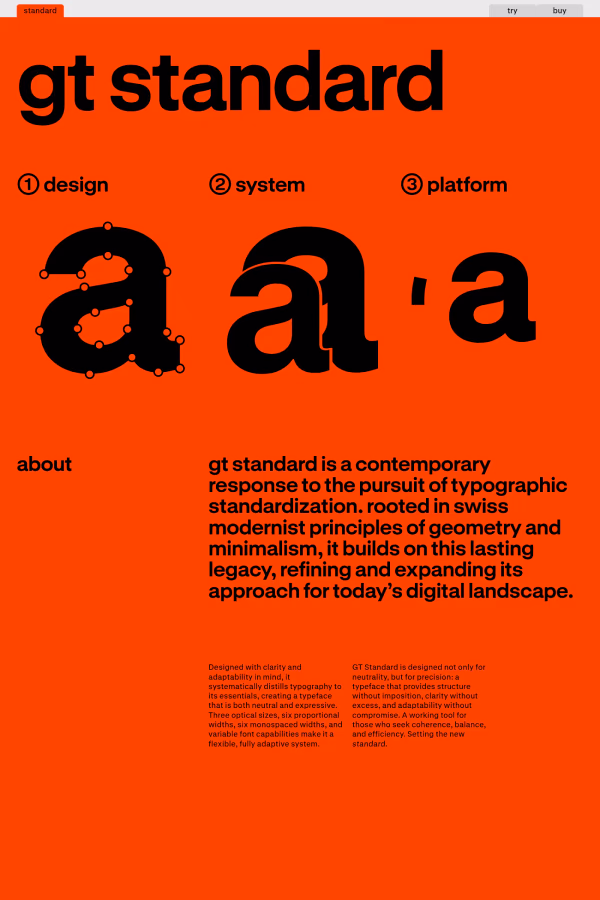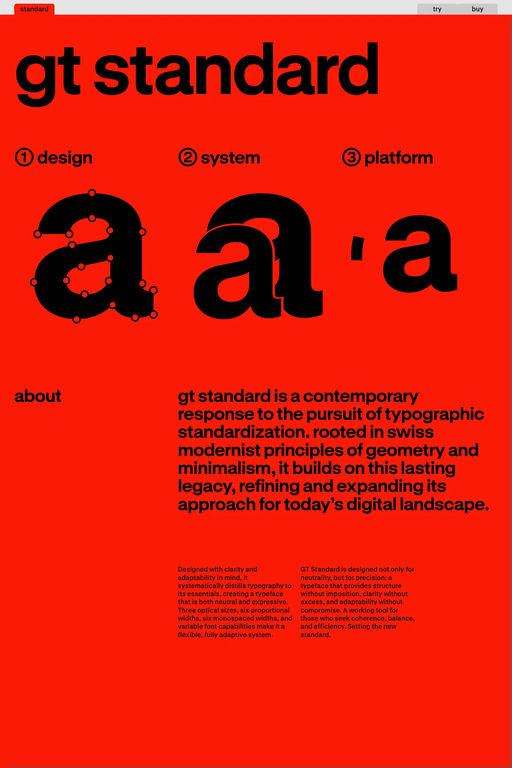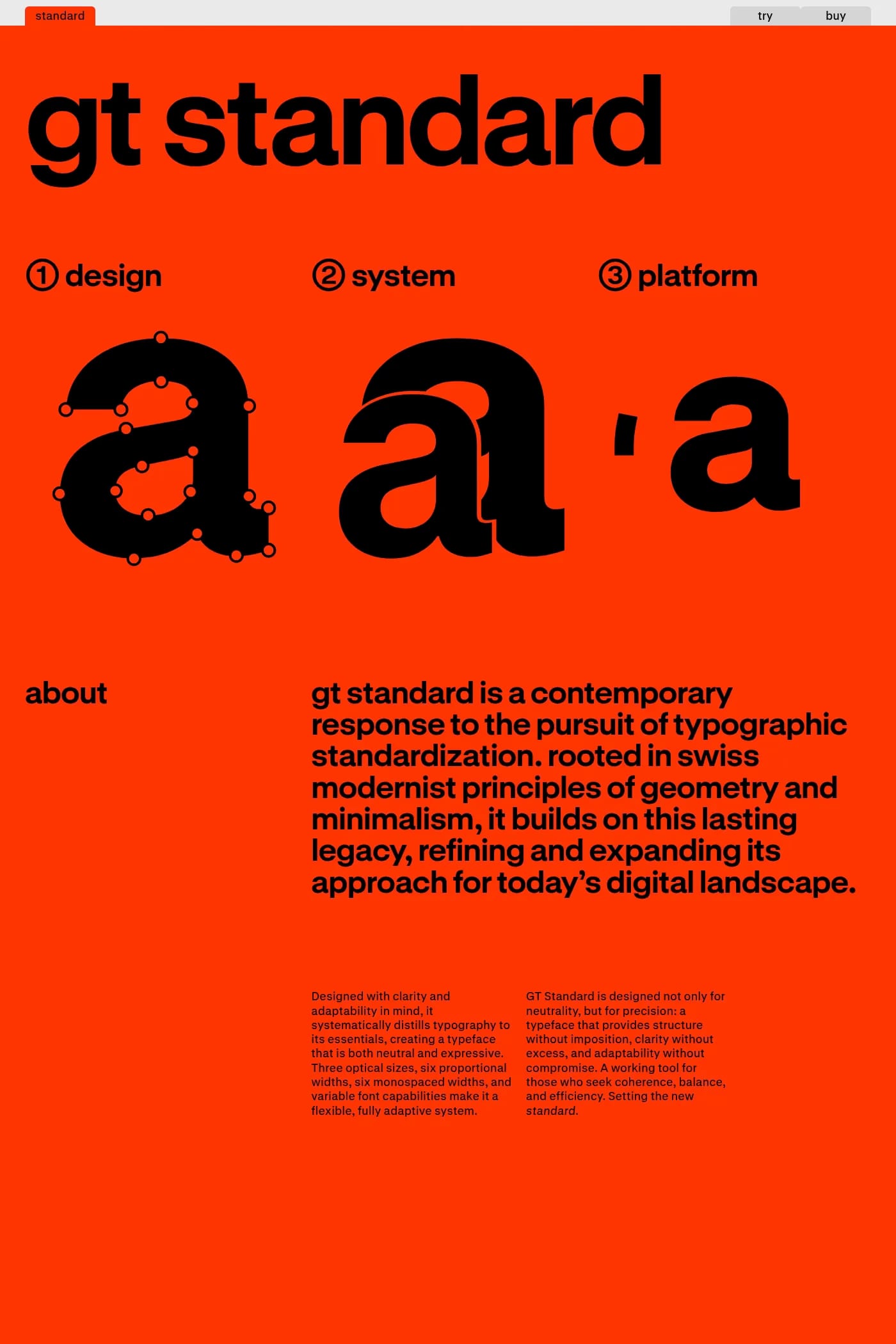
GT Standard is a sans-serif typeface from Grilli Type.
GT Standard is a contemporary response to the pursuit of typographic standardization. Rooted in Swiss modernist principles of geometry and minimalism, it builds on this lasting legacy, refining and expanding its approach for today’s digital landscape.